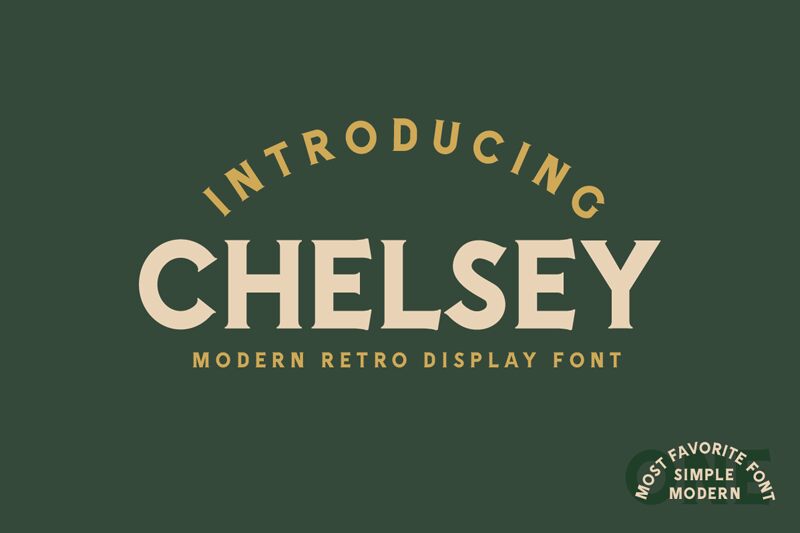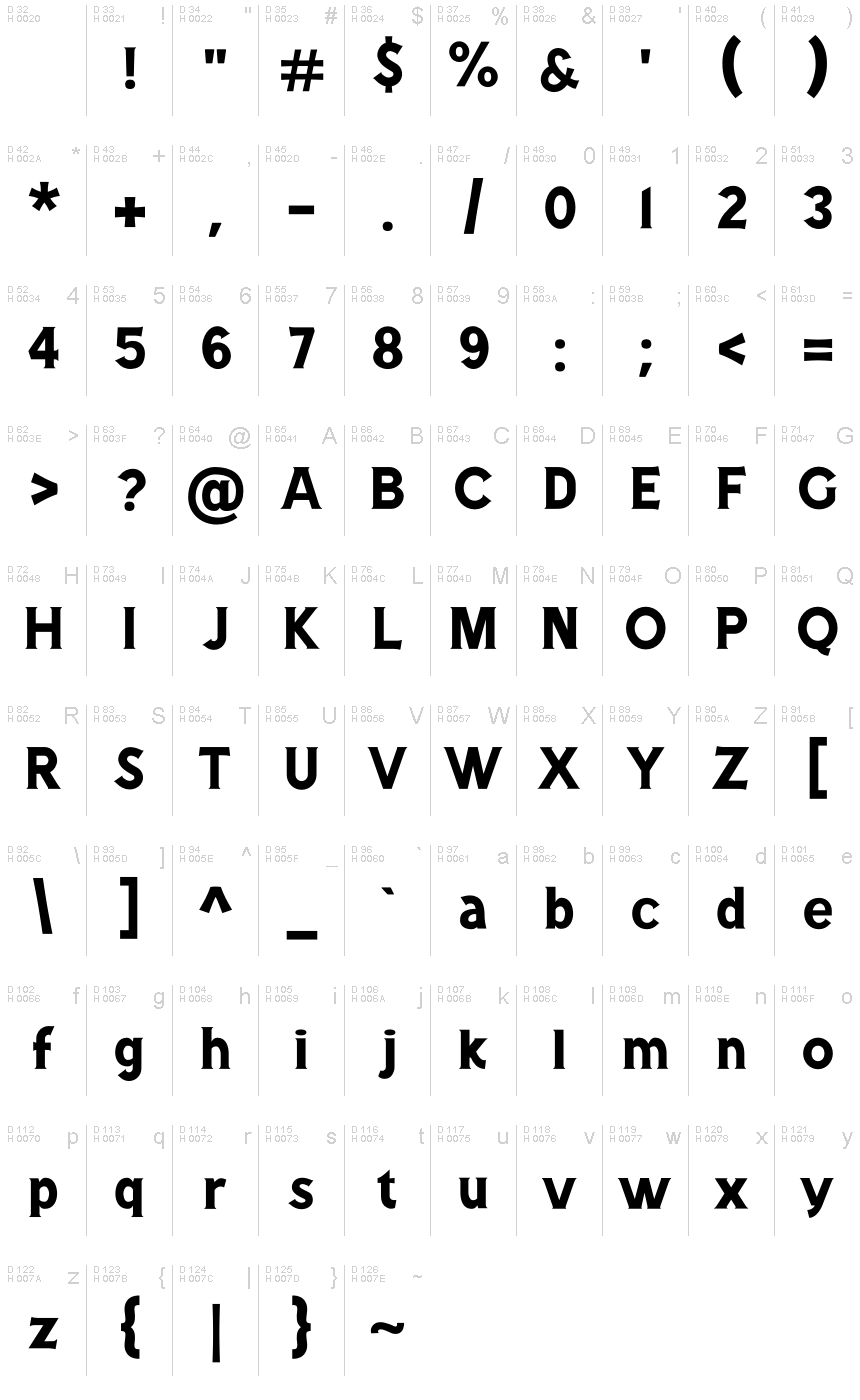
Chelsey
Chelsey by Firstype Studio is a captivating display font that emanates a distinct retro charm. With its bold, striking letterforms and harmonious curves, this typeface exudes a sense of nostalgia and timeless elegance. The font's unique personality shines through in its effortless balance of modern and vintage influences, creating a visually arresting and memorable typographic experience.
Chelsey's versatility allows it to seamlessly integrate into a wide array of design projects, from eye-catching headlines and impactful branding to vintage-inspired packaging and retro-themed digital interfaces. Its strong presence and distinctive character make it an excellent choice for designers seeking to infuse their work with a touch of retro-cool flair and captivating visual appeal.